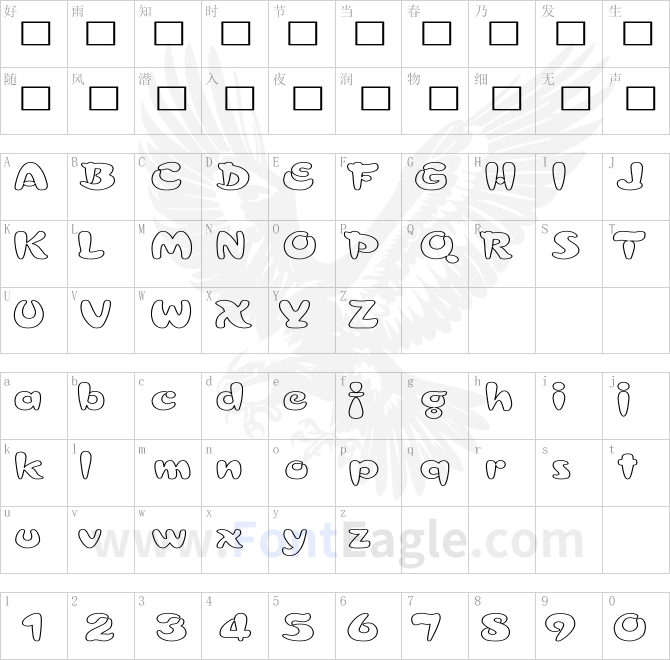
Croissant-HE is a great font, widely used in graphic design, single-page menu design, poster design and other fields, and is deeply loved by designers.Croissant-HE download.